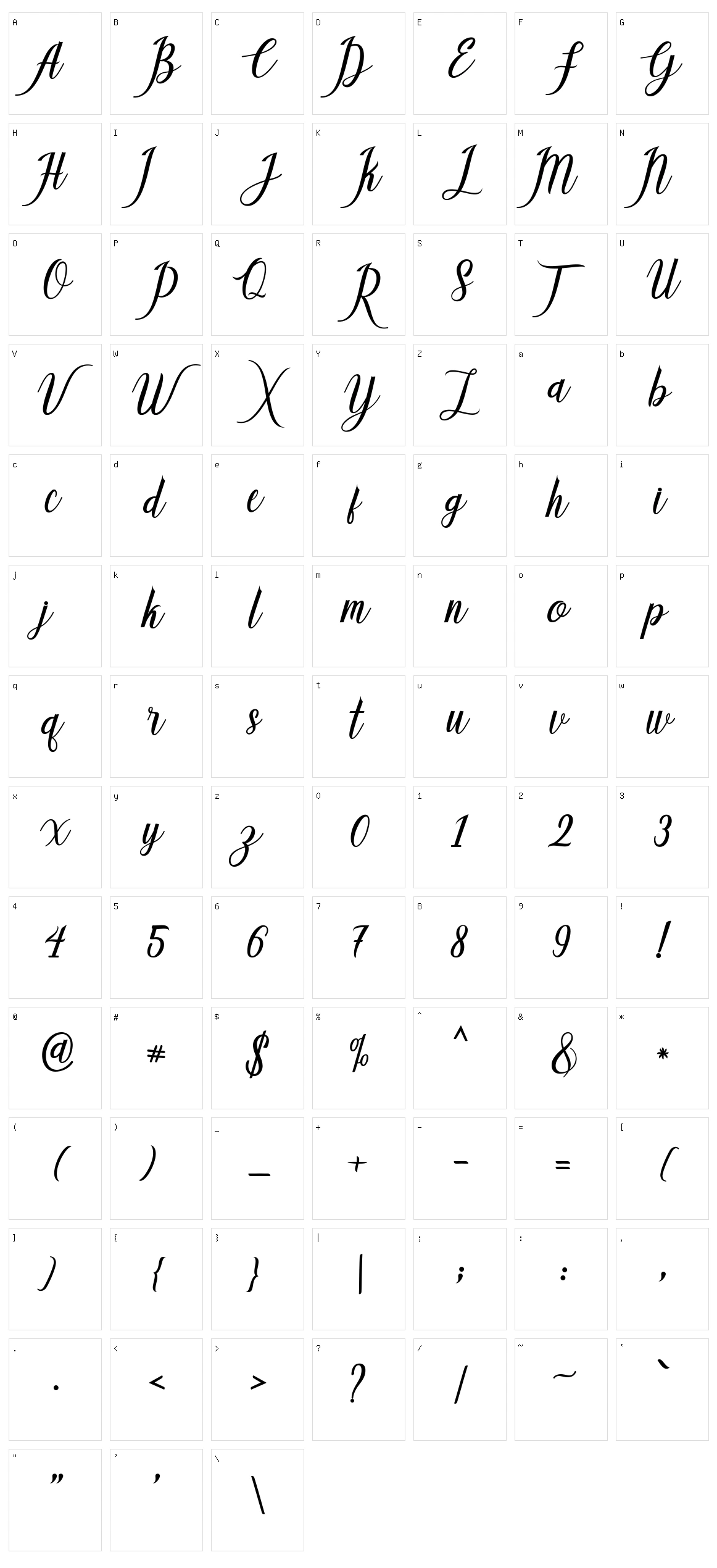
Introducing Callisa Font
Callisa is a calligraphy script font with varied base lines, designed to convey elegance and style. It's smooth, clean and feminine. Works perfectly for logos, magazines, menus, books, invitations, wedding / greeting cards, packaging, labels, t-shirts etc. All your designs will have an amazing homemade touch with Adeline,
Callisa displays 350+ glyphs and 150 alternative characters. including the beginning and end letters, alternative, binding